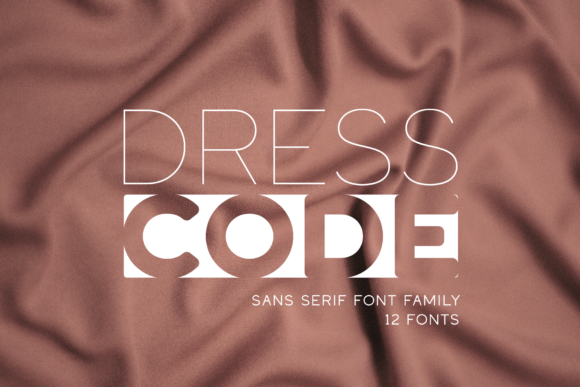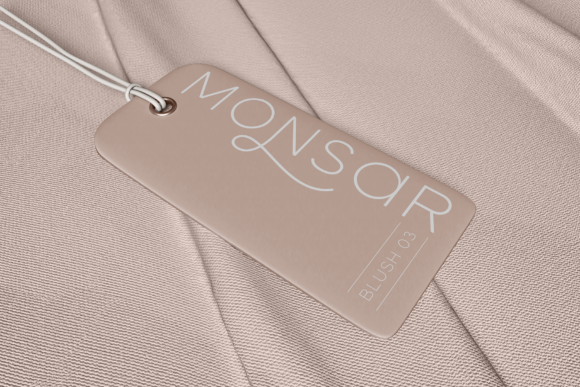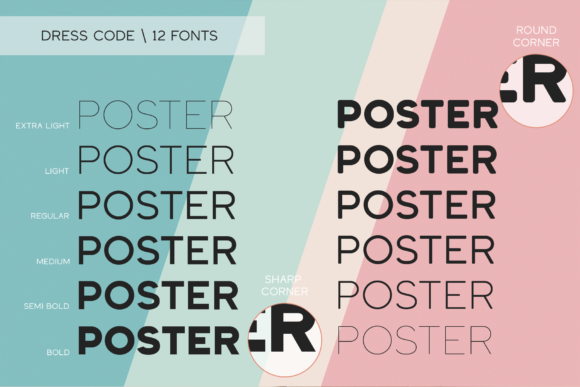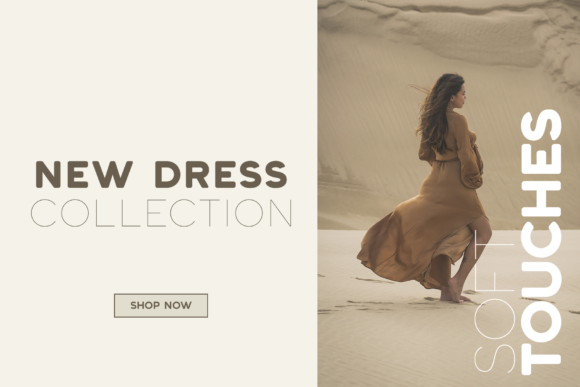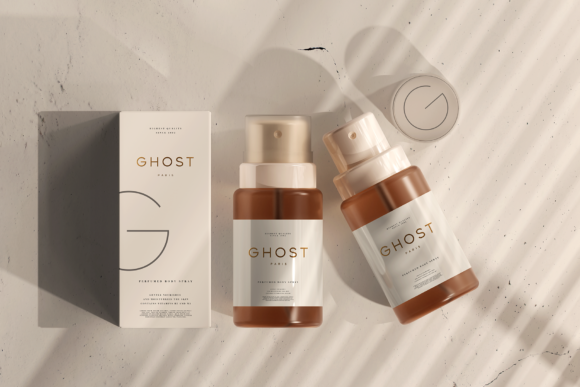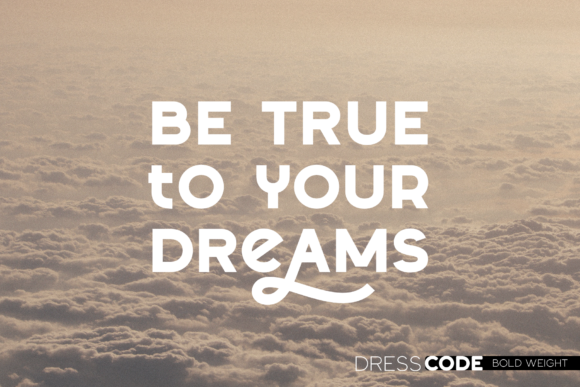
Dress Code Font
Dress Code is a modern sans-serif font family that includes 12 fonts in 2 styles, each with 6 weights. This font is unique, versatile and easy to read, with its unique glyphs providing endless creative options.